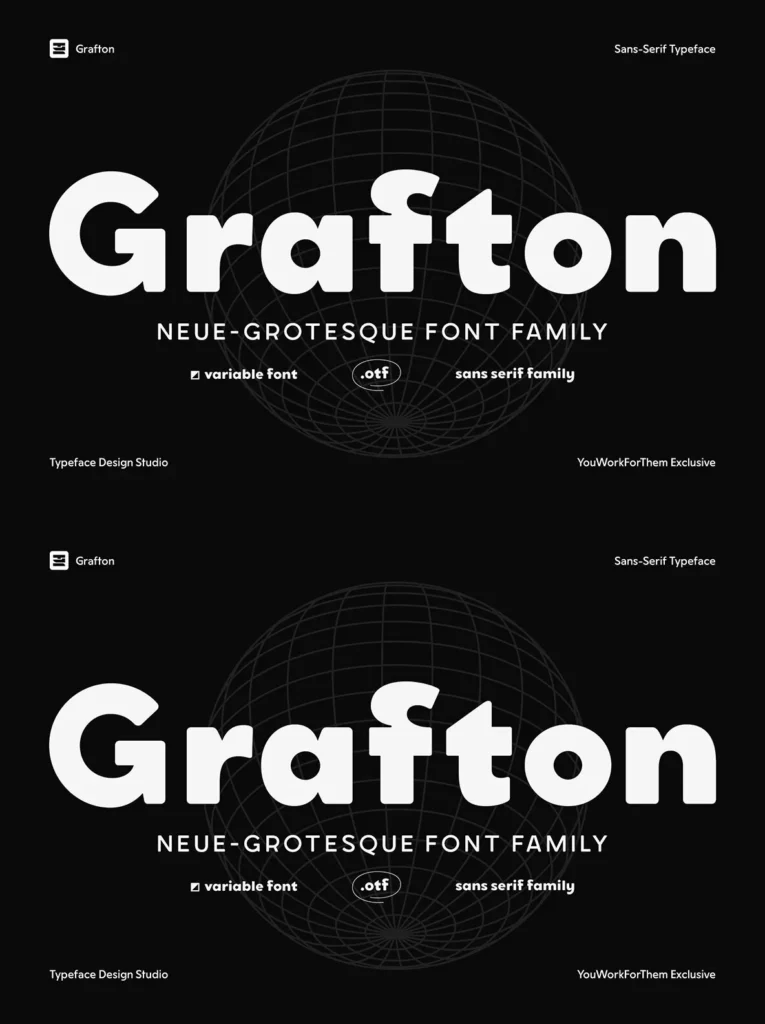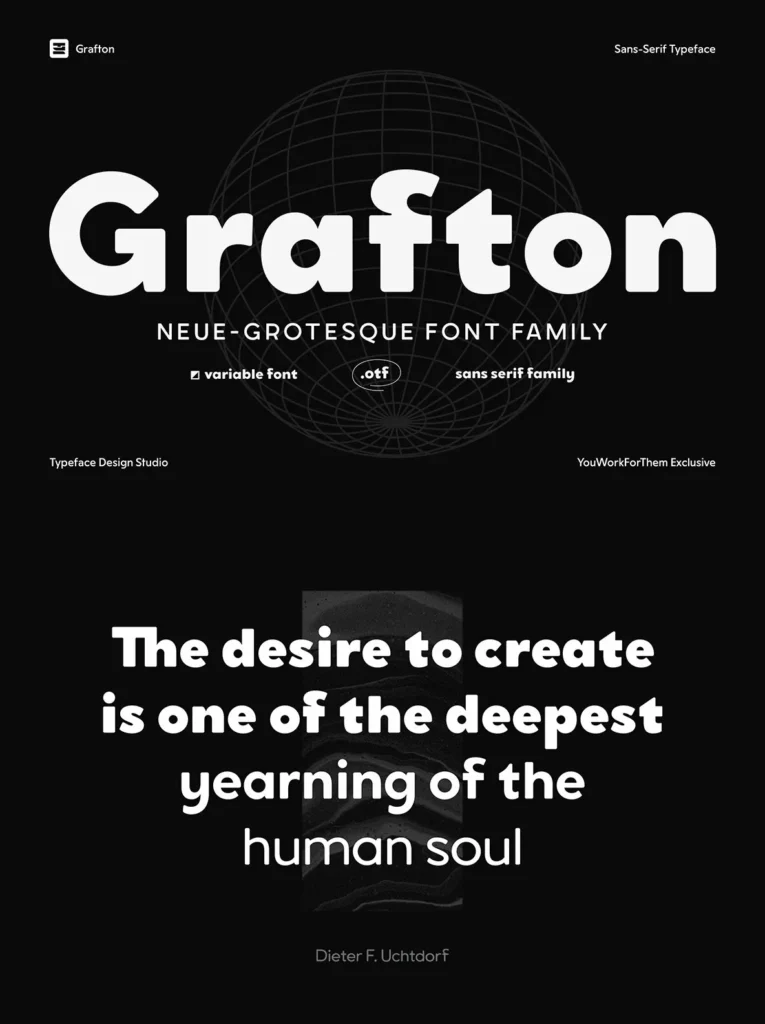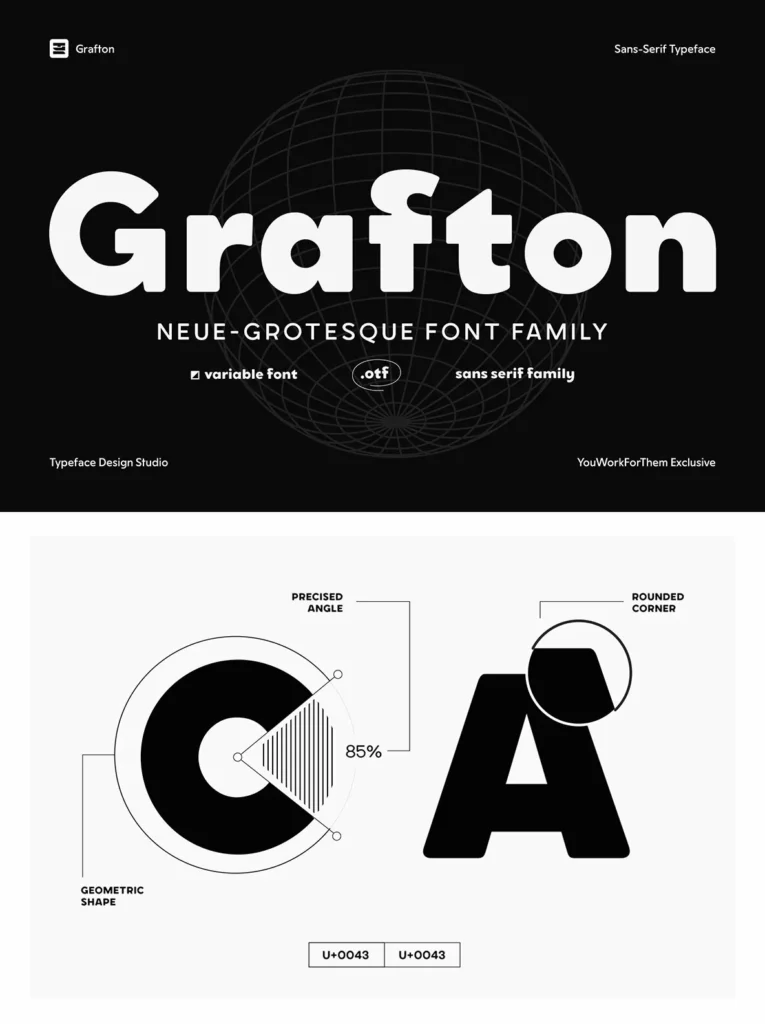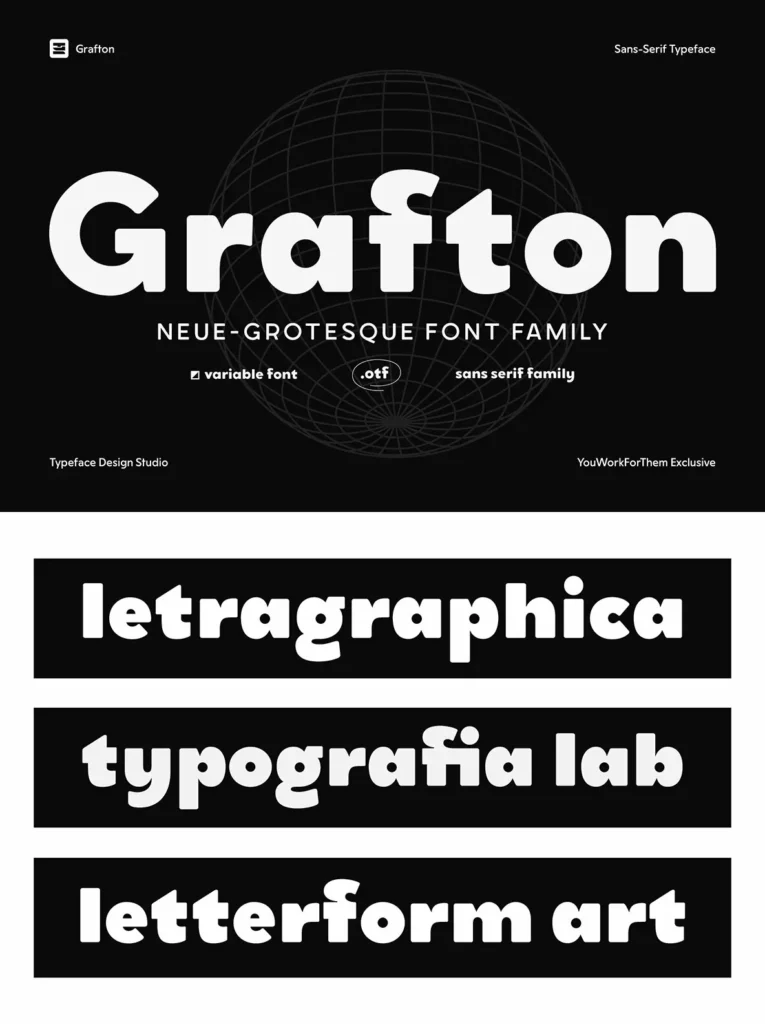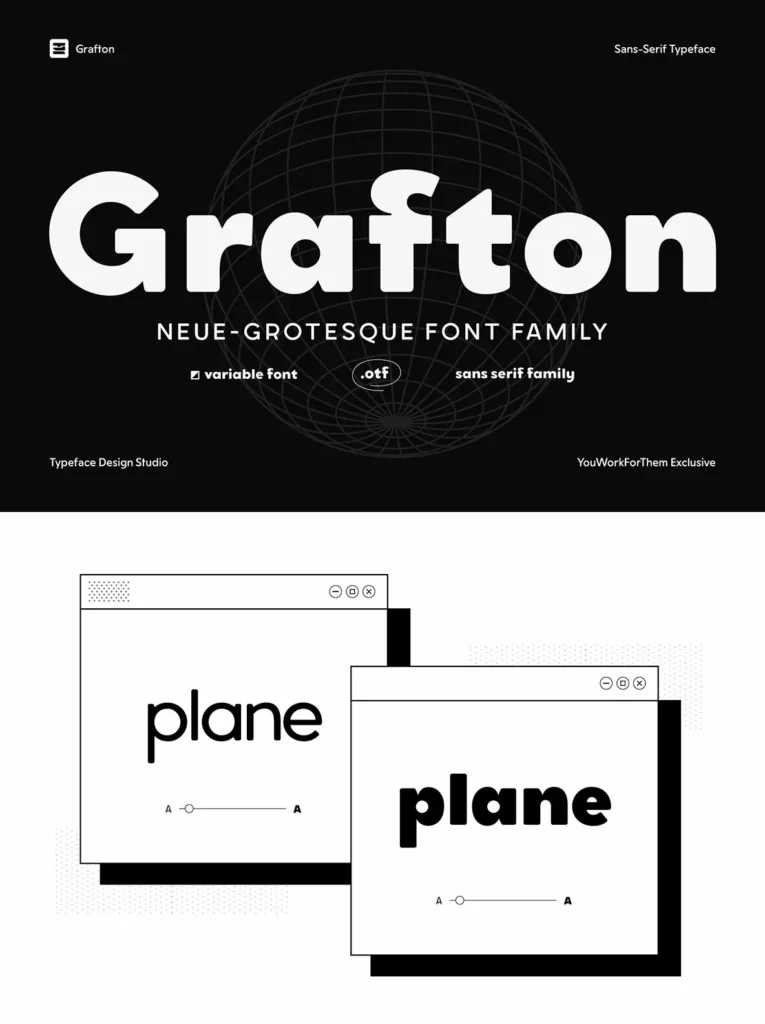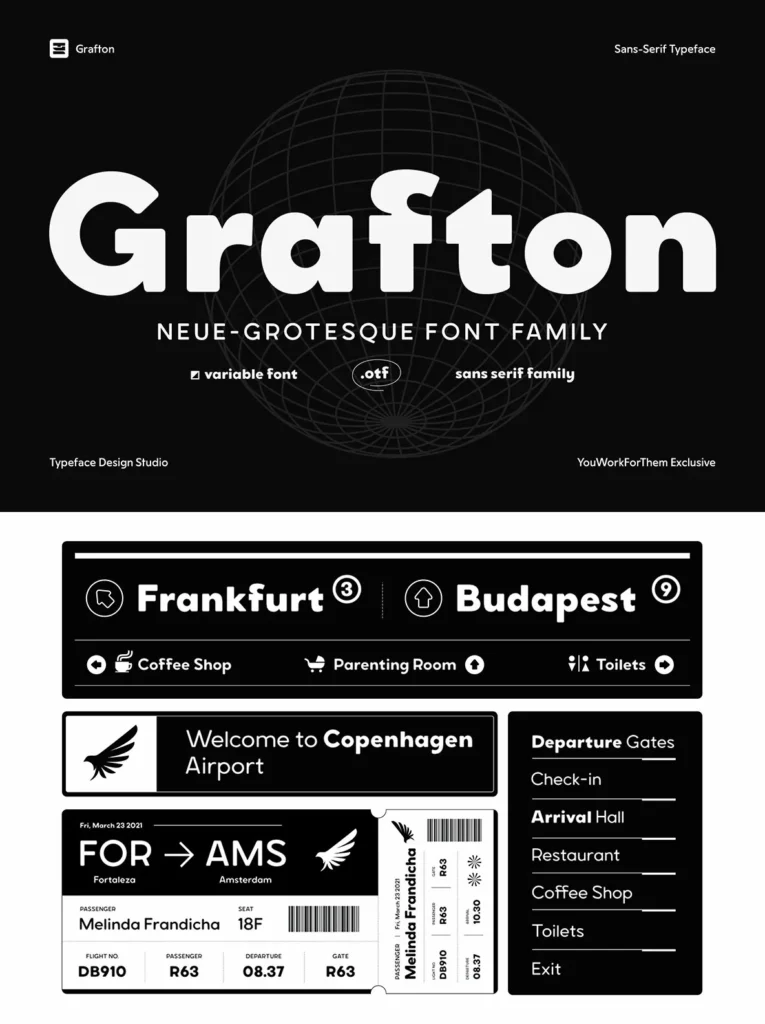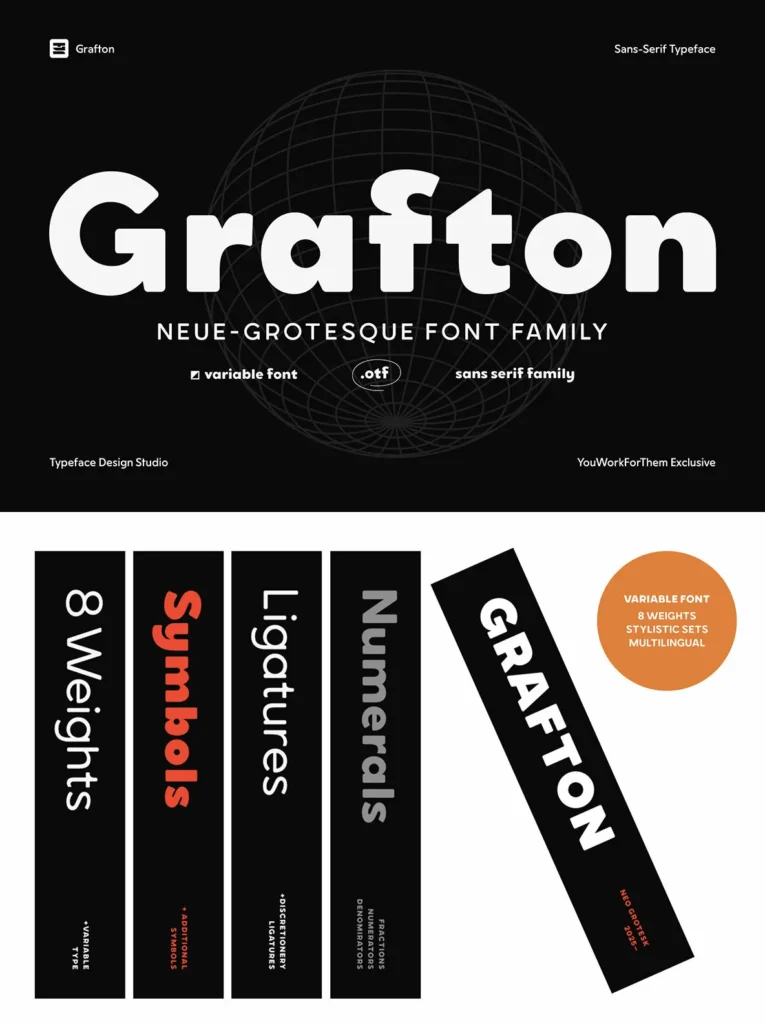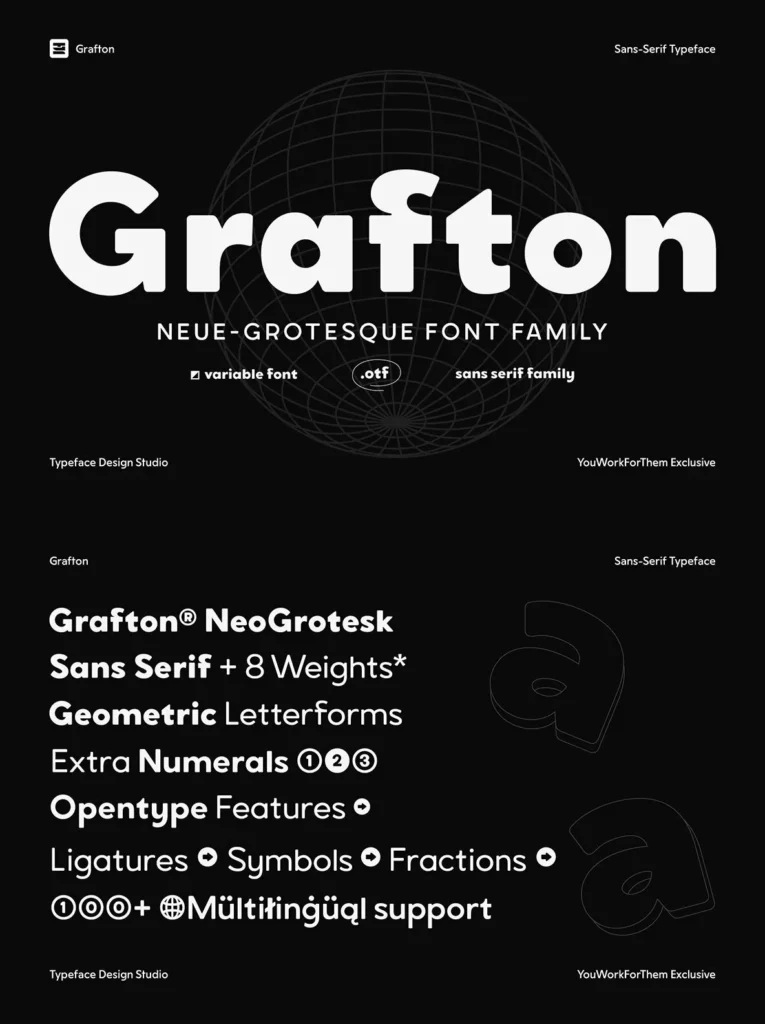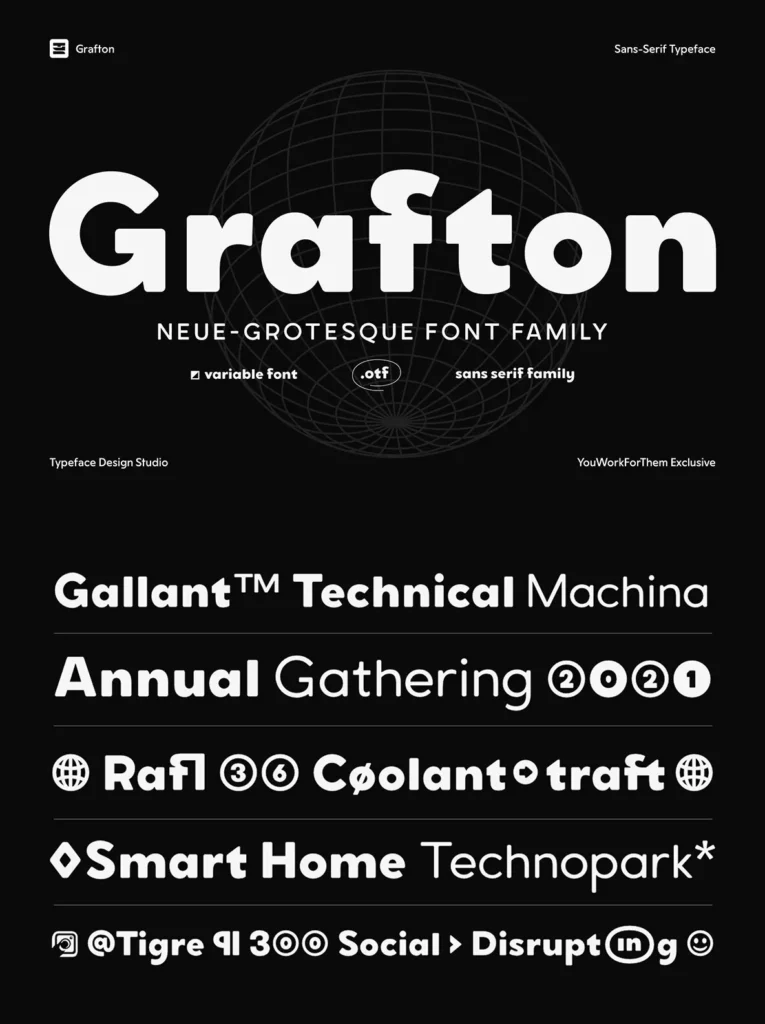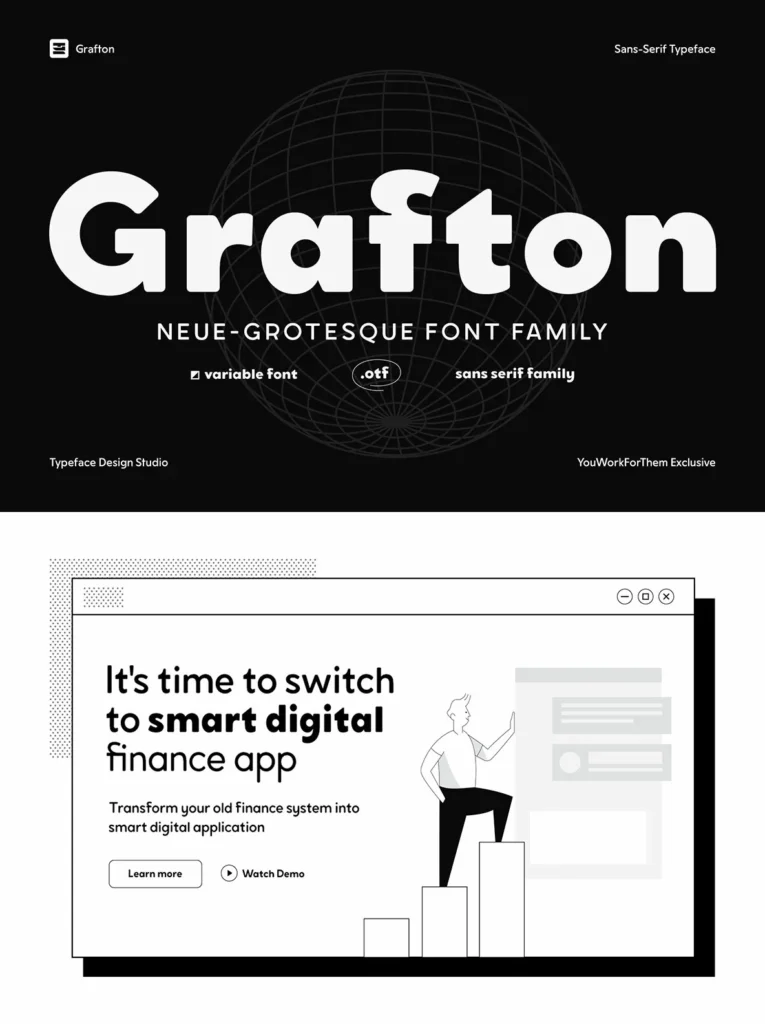
Grafton: A Neo-Grotesque Geometric Typeface
Grafton is a neo-grotesque typeface inspired by geometric shapes, offering a perfect blend of contemporary style with a friendly, strong emotion. Each letter is meticulously crafted from scratch to ensure a calming, smooth, and clean design. Subtle humanist influences imbue this typeface with an inviting warmth that sets it apart.
With eight distinctive weights, Grafton offers a variable font format, providing versatility for diverse design needs. It is an ideal choice for projects needing a contemporary, minimalist aesthetic, making it suitable for modern branding, striking headlines, and efficient editorial layouts. The font’s uniform letterforms and bold presence are sure to make a statement.
OpenType Features
Discretionary Ligatures / Standard Ligatures
Stylistic Alternates
Fractions
Localized Forms
Numerators
Ordinals
Stylistic Sets
More than 560 glyphs per weight and style